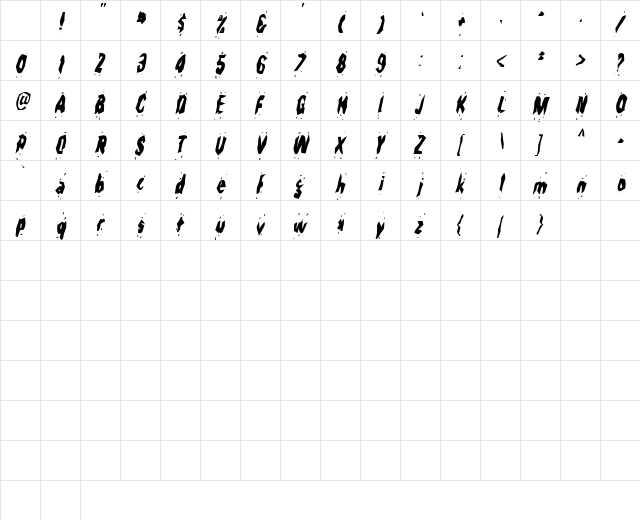
Complete SeedPeopleCondensed Oblique glyph index. Displaying only characters natively supported by SeedPeopleCondensed Oblique font.
SeedPeopleCondensed is a composed and adaptable typeface that performs quietly and consistently across a wide range of design contexts. The slanted form adds forward momentum and visual energy. Its narrow stance lets it pack a punch even in space-constrained designs.